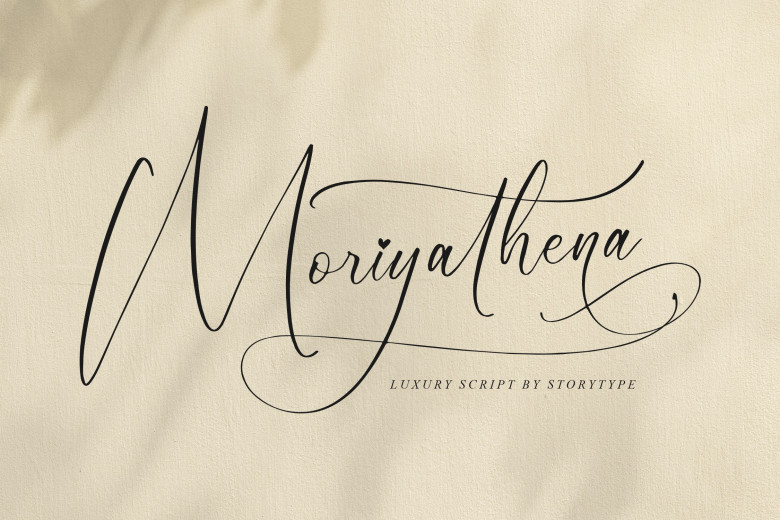
Moriyathena Font
Moriyathena is a luxurious script typeface with a contemporary style and a distinctive appearance. It works amazingly as a stylish & luxury logotype, book or film title, branding style, magazine design, fashion brand, clothing, writing, quotations, and much more. This font is PUA encoded, which implies you may easily access all of the glyphs and swashes!
Moriyathena Calligraphy Font